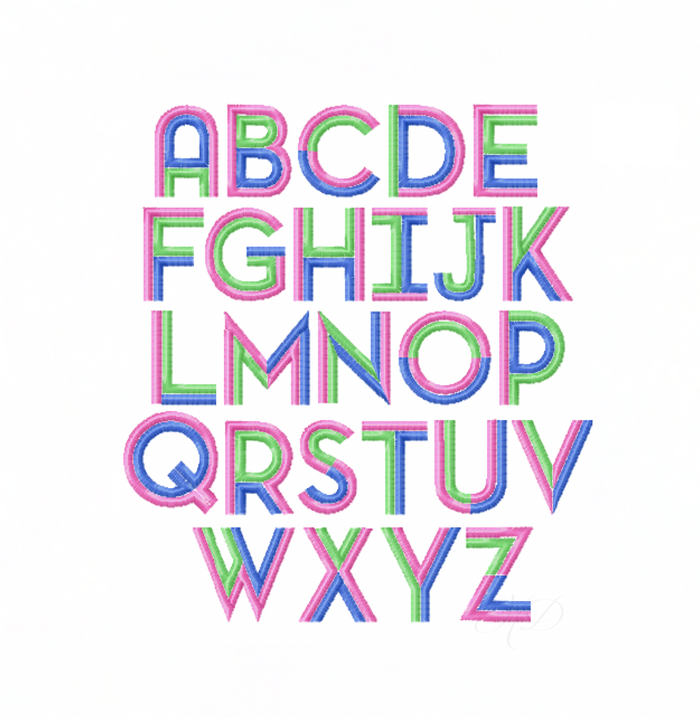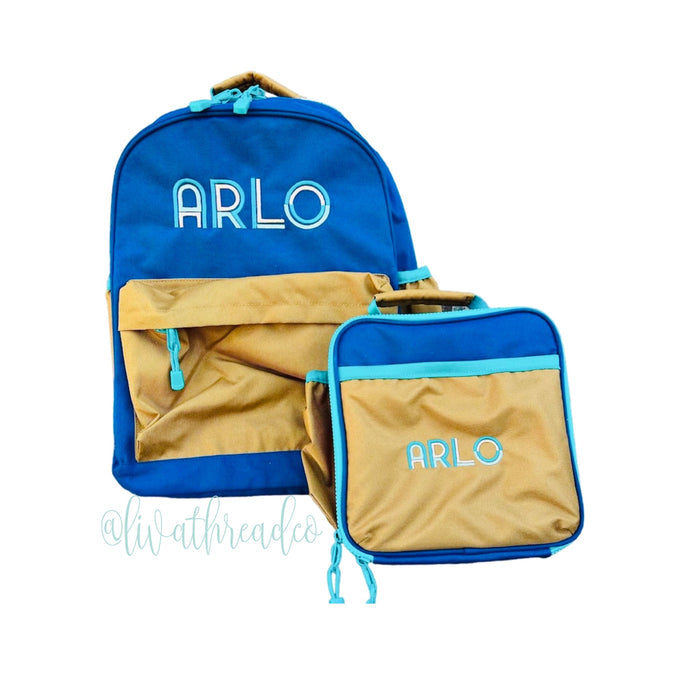
Madison Satin Embroidery Font Package
The Madison Satin stitch embroidery font is a three color fill stitch embroidery font including uppercase letters A-Z.